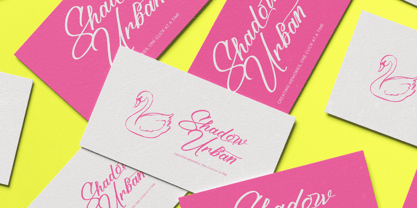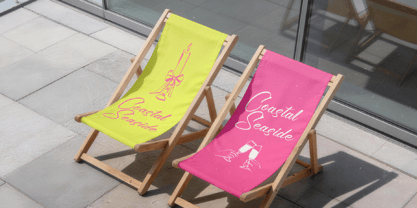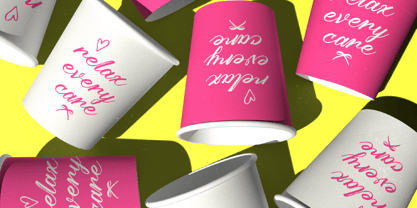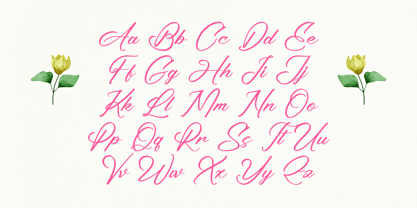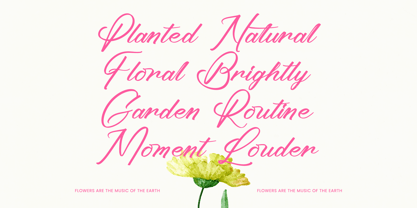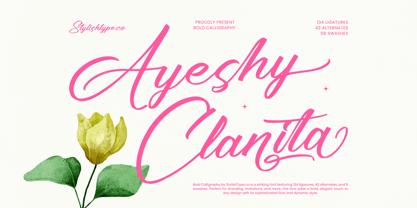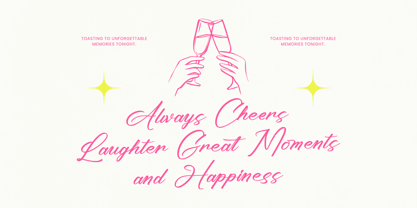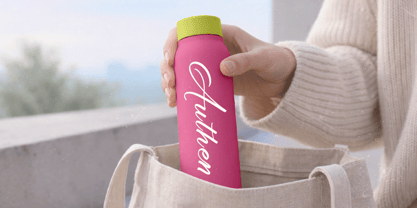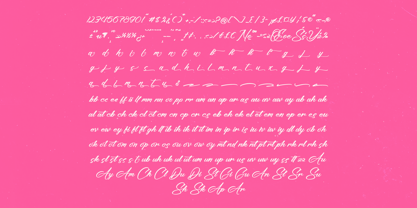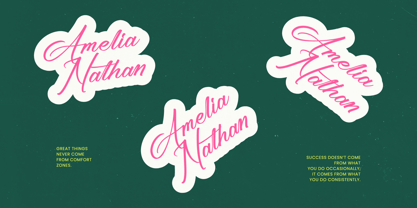
Ayeshy Clanita
by Stylishtype Studio
The Ayeshy Clanita Font Family was designed by Heru Utama Putra and published by Stylishtype Studio. Ayeshy Clanita contains 2 styles and family package options. More about this family
Ayeshy Clanita is a bold calligraphy script font designed to deliver elegance, confidence, and expressive movement in every letterform. With flowing strokes, refined curves, and dynamic swashes, this typeface captures the beauty of handcrafted lettering while maintaining a polished modern finish. Perfect for branding, wedding invitations, luxury packaging, beauty labels, social media graphics, and high-end logos, Ayeshy Clanita adds a sophisticated and feminine touch to any project. Featuring 134 ligatures, 42 alternates, and 8 swashes, it offers extensive stylistic flexibility for seamless connections and graceful compositions. Whether used for romantic headlines or stylish signatures, Ayeshy Clarita brings bold elegance and timeless calligraphic charm to both print and digital design.